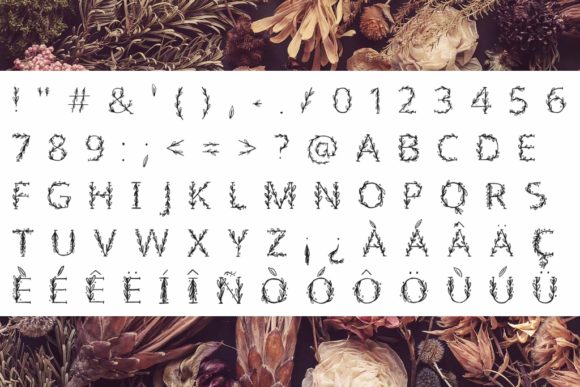
Discover the Beauty of Floral Font: A Unique All-Caps Flower-Themed Typeface
Are you a designer or crafter looking for a font that can add a touch of elegance and whimsy to your projects? Look no further than the Floral Font, a stunning all-caps flower-themed typeface that’s sure to inspire. In this article, we’ll take a closer look at what makes Floral Font so special and how you can use it to elevate your designs.
What is Floral Font?
Floral Font is a unique and eye-catching typeface that’s inspired by the beauty of flowers. Each letter is carefully crafted to resemble a different type of flower, making it a one-of-a-kind addition to any design project. The font is available in all-caps, making it perfect for headlines, titles, and other applications where you want to make a statement.
The Green-Friendly Charm of Floral Font
One of the things that sets Floral Font apart is its green-friendly charm. The font is designed to evoke the natural world, with each letter featuring delicate floral details that are sure to bring a touch of the outdoors into your designs. Whether you’re working on a project for a gardening company, a flower shop, or simply want to add some natural beauty to your designs, Floral Font is the perfect choice.
Key Features of Floral Font
So, what makes Floral Font so special? Here are just a few of its key features:
- Unique and eye-catching design: Each letter is carefully crafted to resemble a different type of flower, making Floral Font a standout in any design project.
- All-caps design: Perfect for headlines, titles, and other applications where you want to make a statement.
- Green-friendly charm: The font’s natural, floral design makes it perfect for projects that require a touch of the outdoors.
- High-quality design: The font is carefully crafted to ensure that each letter is clear and easy to read, even at small sizes.
How to Use Floral Font in Your Designs
Floral Font is a versatile typeface that can be used in a wide range of design projects. Here are just a few ideas to get you started:
- Wedding and event invitations: Add a touch of elegance and whimsy to your wedding or event invitations with Floral Font.
- Gardening and flower shop branding: Perfect for gardening companies, flower shops, and other businesses that want to evoke the natural world.
- Stationery and greeting cards: Use Floral Font to add a touch of personality to your stationery and greeting cards.
- Digital and print advertising: Make your advertising stand out with the unique and eye-catching design of Floral Font.
Tips for Working with Floral Font
Here are a few tips to keep in mind when working with Floral Font:
- Use it sparingly: While Floral Font is beautiful, it can be overwhelming if used too much. Use it sparingly to add a touch of elegance and whimsy to your designs.
- Pair it with a simple font: Pair Floral Font with a simple font to create contrast and make your design stand out.
- Experiment with colors: Floral Font looks beautiful in a range of colors, from soft pastels to bold brights. Experiment with different colors to find the perfect look for your design.
Floral Font is a unique and eye-catching typeface that’s sure to inspire designers and crafters. With its green-friendly charm and beautiful floral design, it’s the perfect choice for a wide range of design projects. Whether you’re working on a wedding invitation, a gardening company’s branding, or simply want to add some natural beauty to your designs, Floral Font is a great choice. So why not give it a try and see how it can elevate your designs?